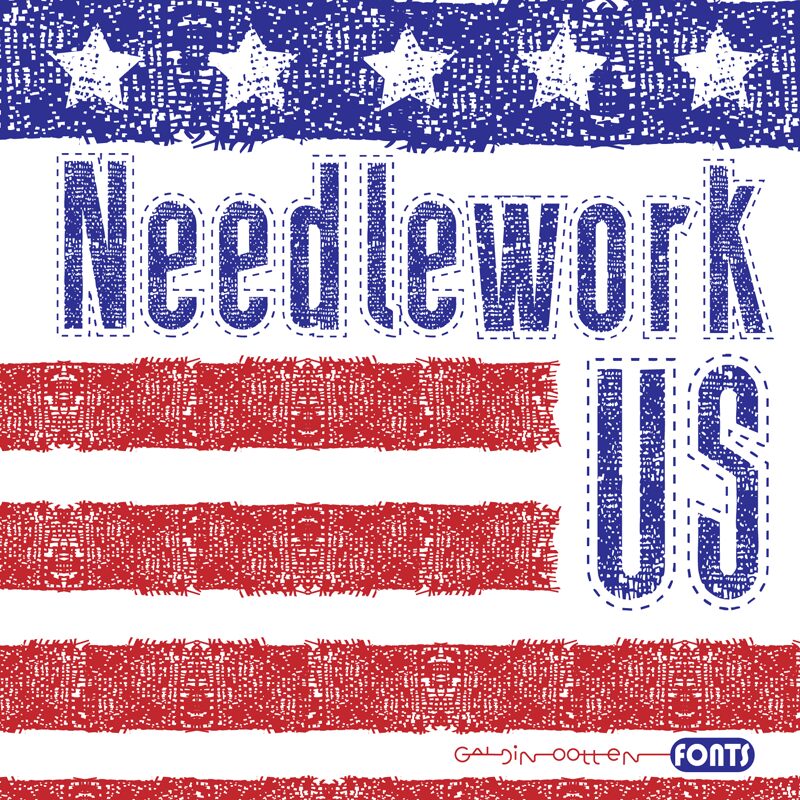
Needlework US Regular
Needlework US font is a decorative condensed type where each letter has been injected with nostalgia and erosion for a timeless look. Asked to describe its style, some answers that pop in mind would surely include embroidery-inspired, textured, distressed, and vintage. After all, these attributes have all joined forces for this display font by Galdino Otten Fonts.
Free Needlework US combines creative shapes with authentic appearances in order to produce neat designs on social media posts or within printed magazines. More ideas of use cases include posters about grandma's sewing class, casual blog posts for summer vacation memories, branding logos the feature woven clothes collections, apparel taglines on billboards or front-facing wall shops signs.